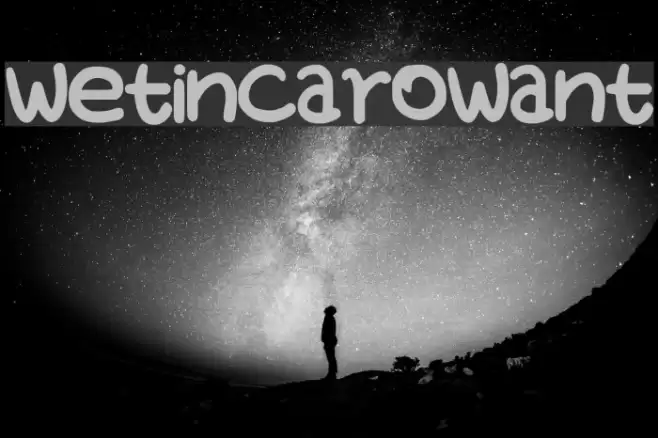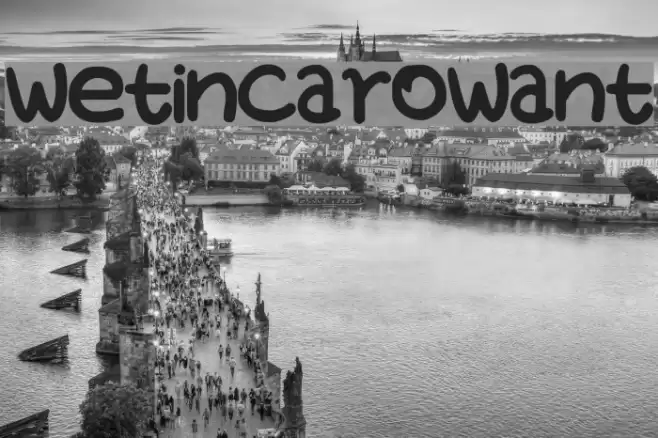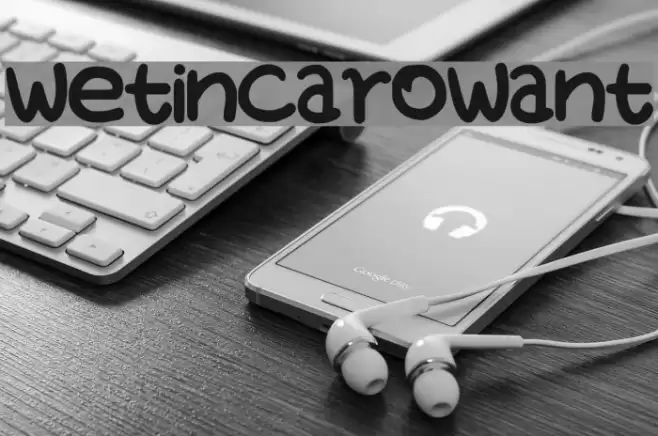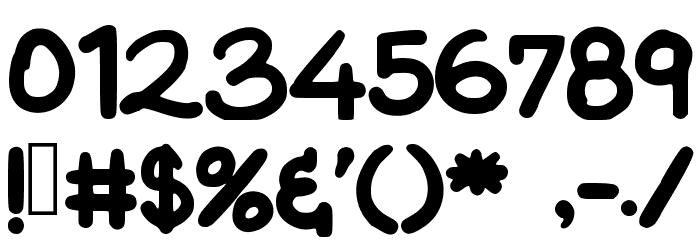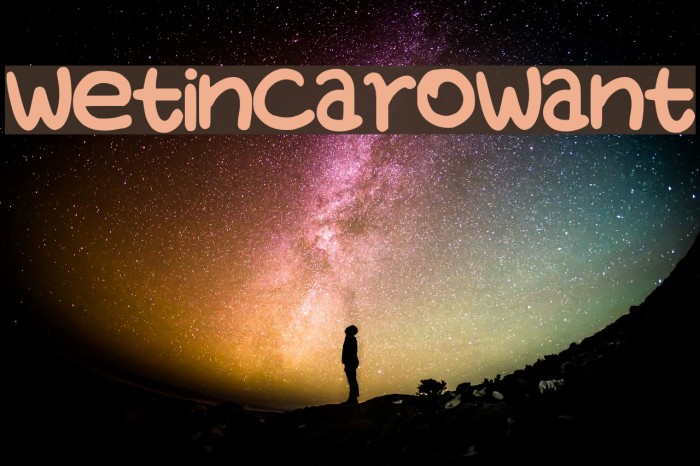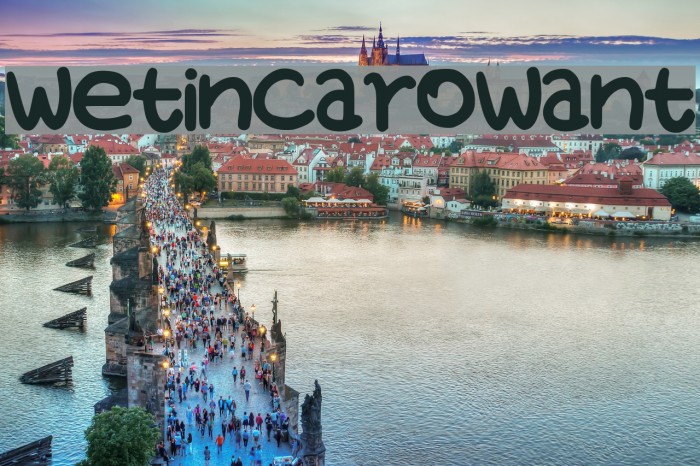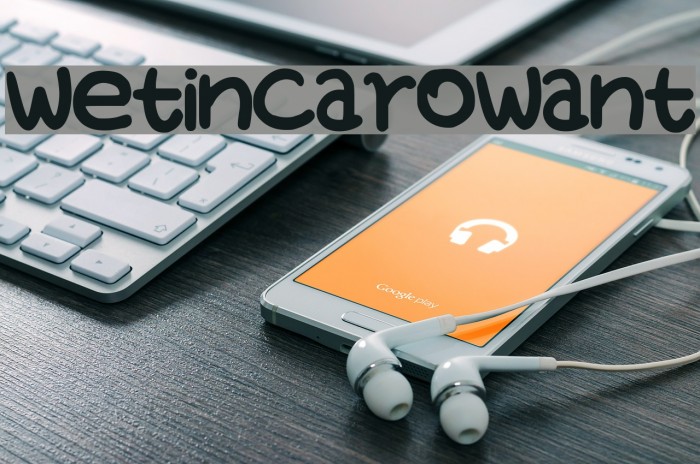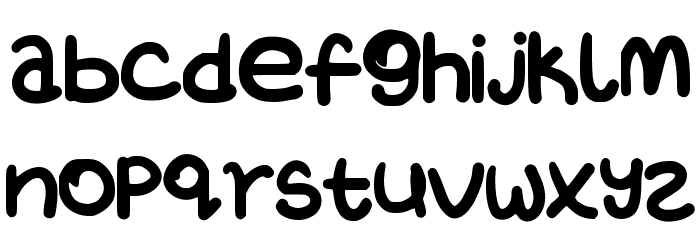
WetinCaroWant Font
WetinCaroWant Description
This playful and bold font features rounded, bubble-like characters that convey a sense of fun and approachability. The letters are uniformly thick, with a consistent stroke width that adds to its friendly appearance. The uppercase and lowercase letters maintain a cohesive style, with smooth curves and a slightly exaggerated roundness. The numbers and special characters follow the same design principles, ensuring a harmonious look across all glyphs. This font's unique style makes it stand out, perfect for projects that require a touch of whimsy and creativity.
A playful, rounded font with a bold, bubble-like appearance from Comic fonts.
- Proposed Projects: Ideal for children's books, playful branding, party invitations, and creative posters.
- Overall Style: Playful